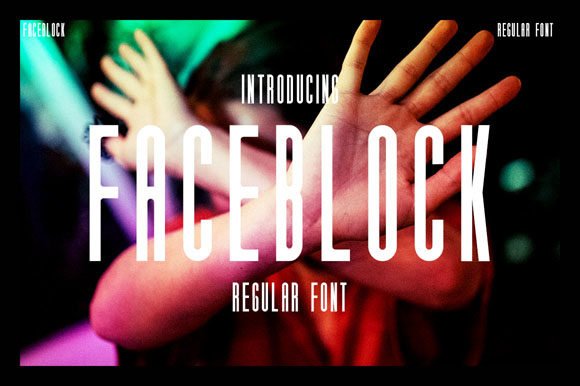
Introduction to Faceblock Font
Faceblock is a modern sans serif font.
It will give a smart touch to your designs and is perfect for logos, magazines, branding and much more .
Key Features of Faceblock Font
Why Choose Faceblock Font?